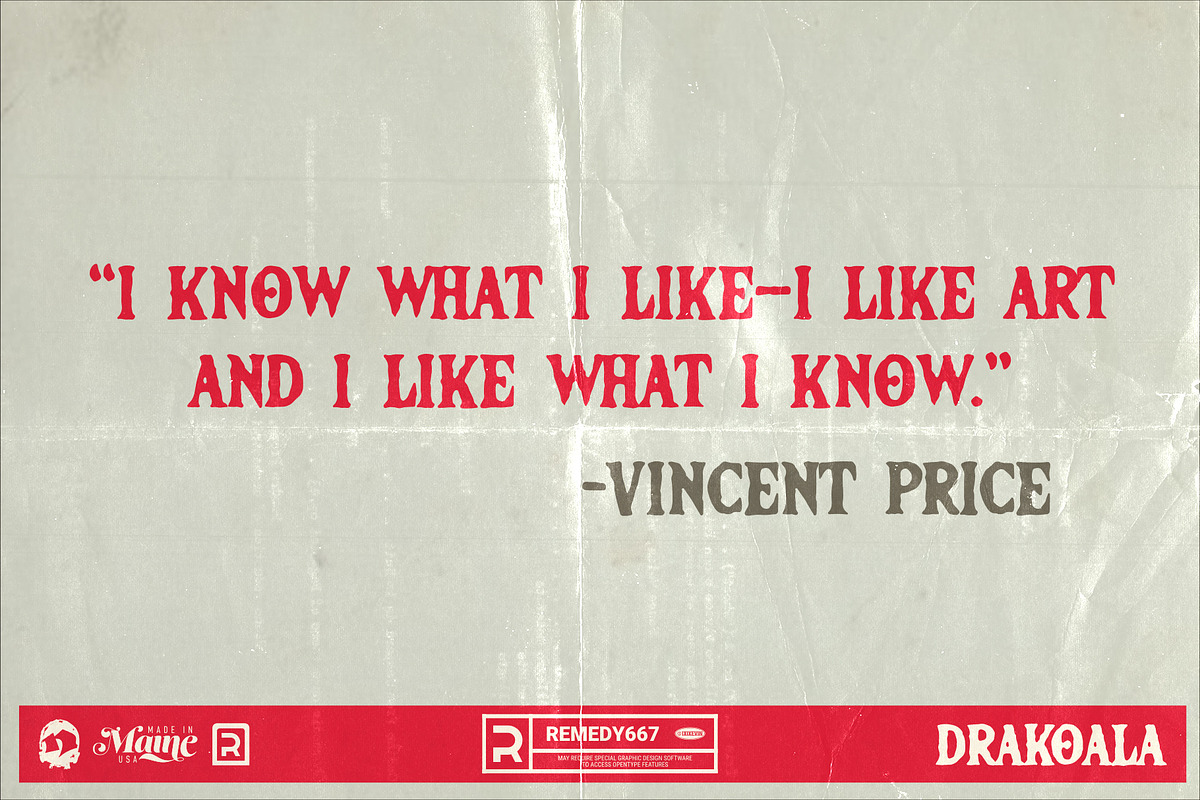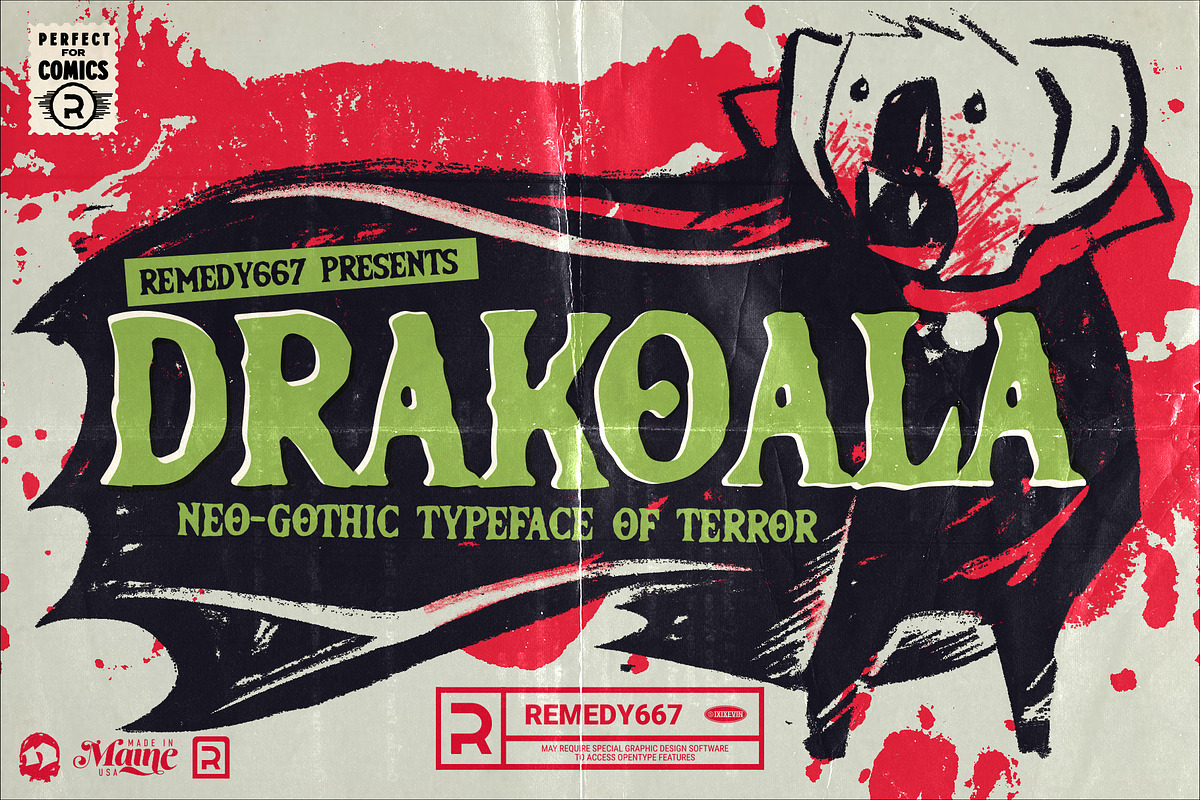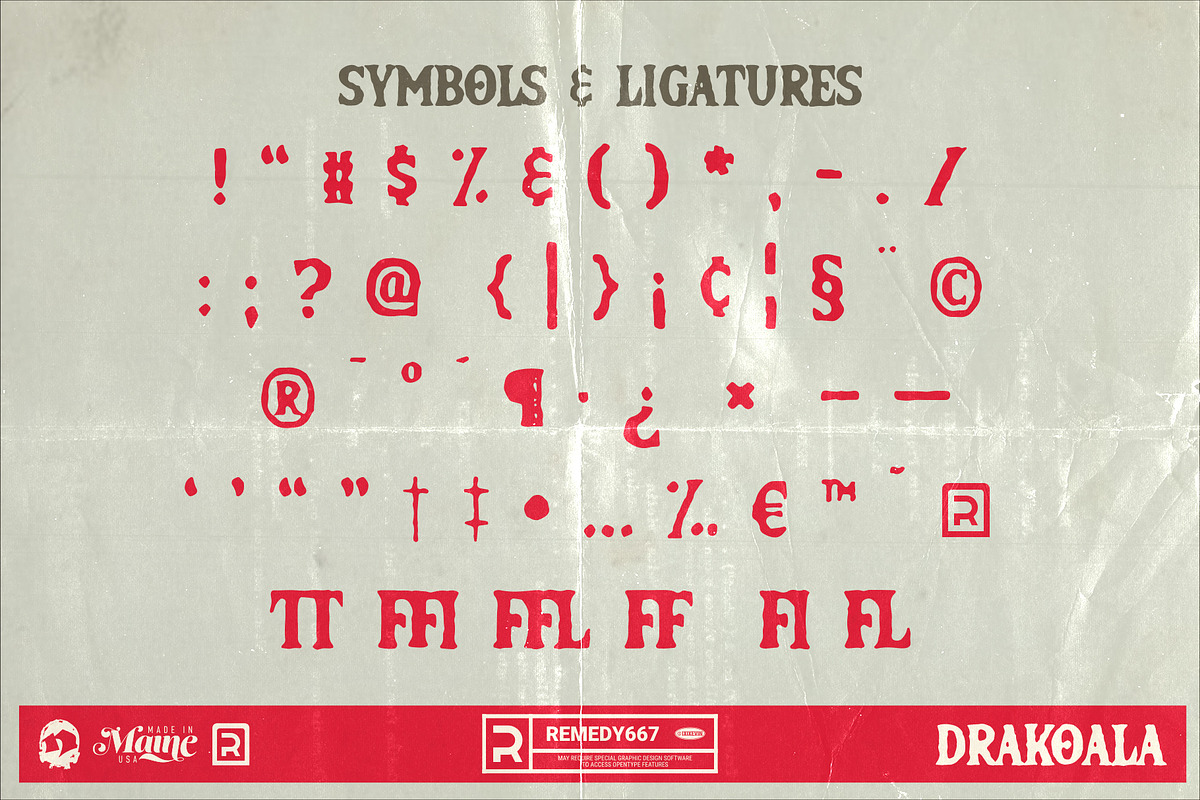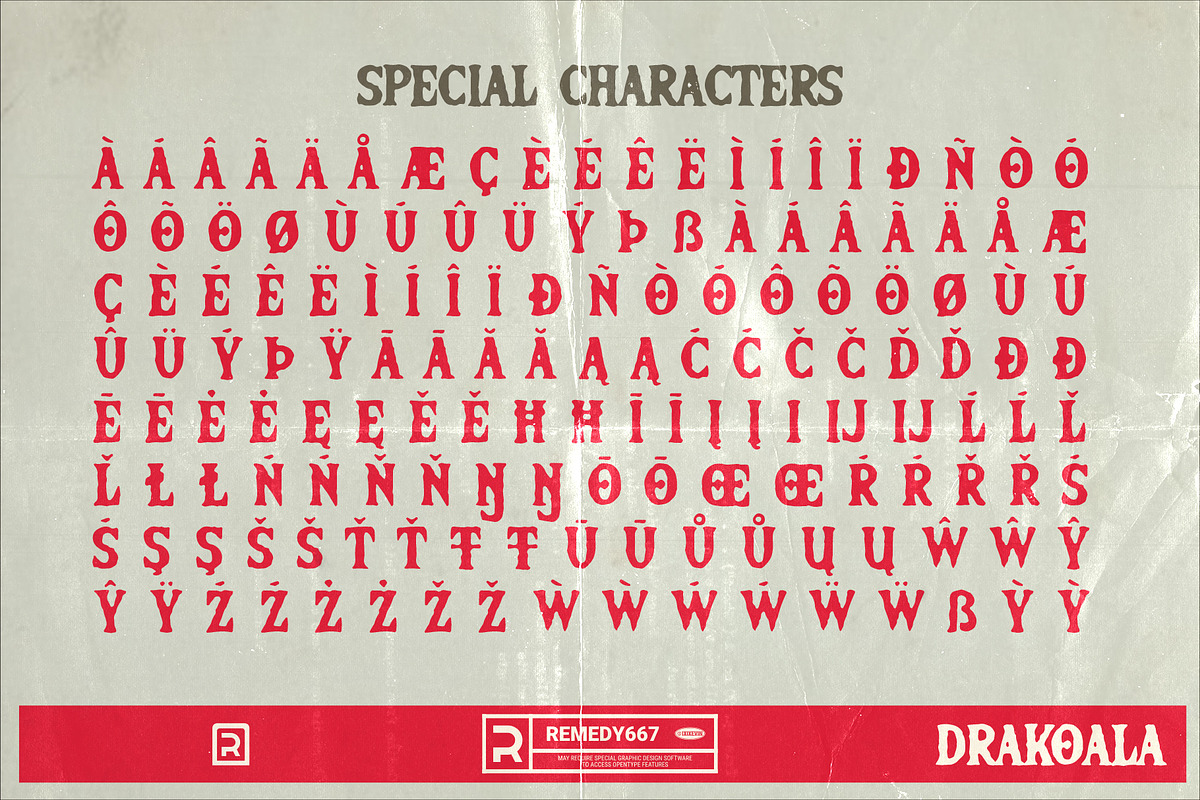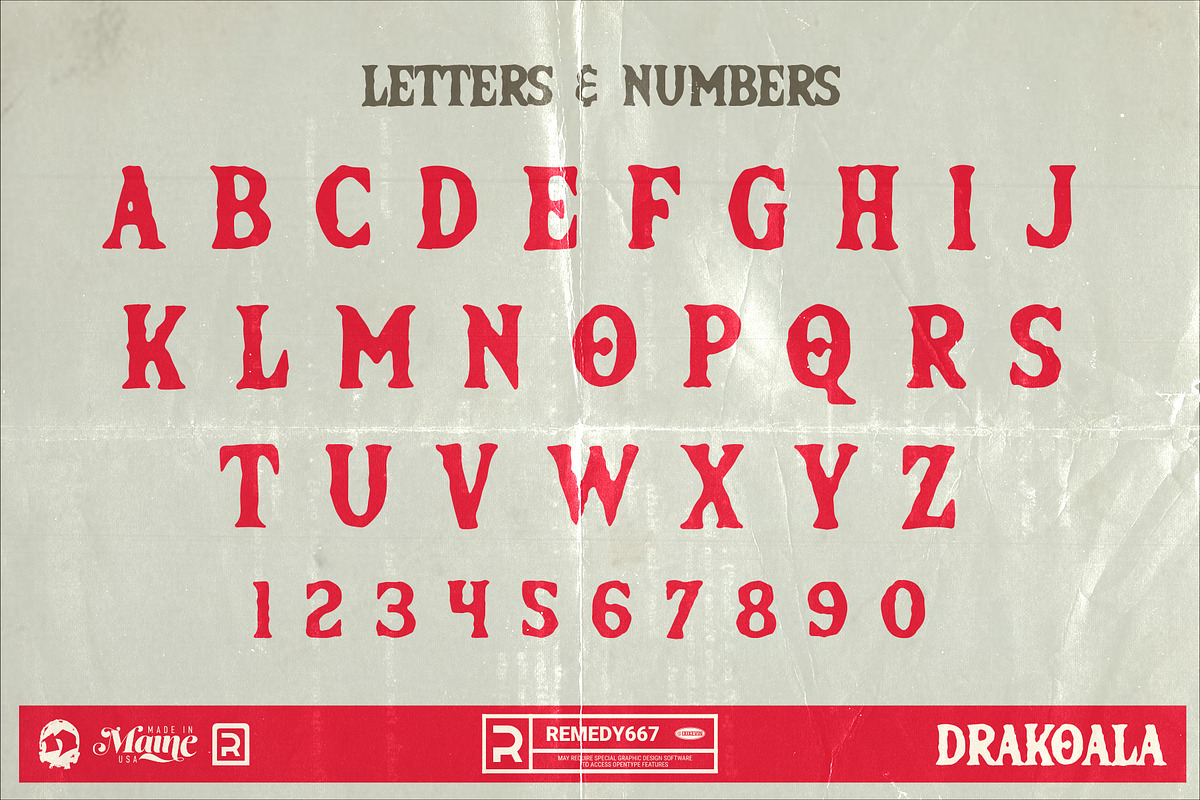
Drakoala - Neo-Gothic Horror Font
Drakoala combines the classic look of vintage movie posters with a modern hand drawn feel making it perfect for a variety of projects. Drakoala is perfect for headlines, titles & logos and plays well in film, magazines, comics, packaging, toys, posters, games… any project you can sink your teeth into.
Drakoala - Neo-Gothic Horror Font by Remedy667 fits naturally into Branding, posters, packaging, typography.